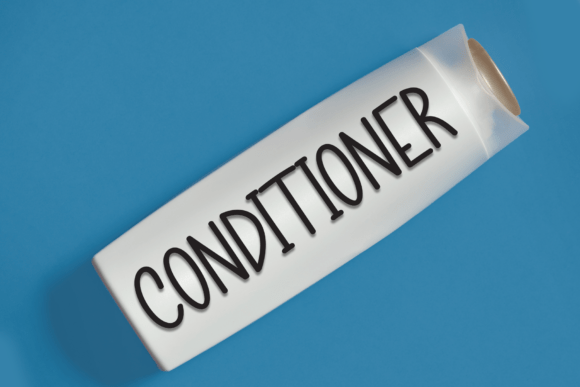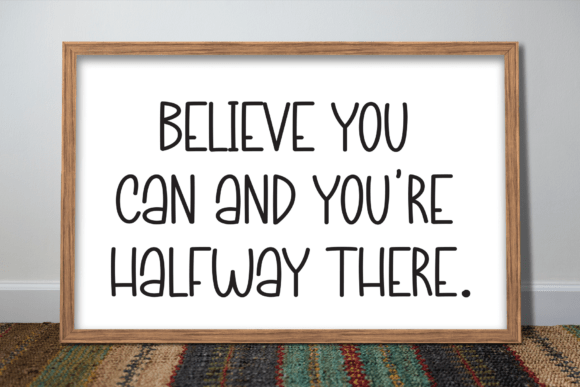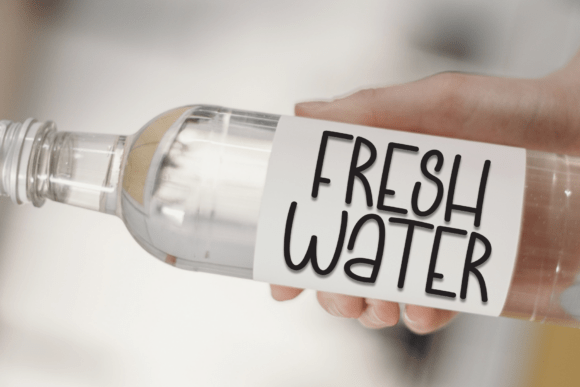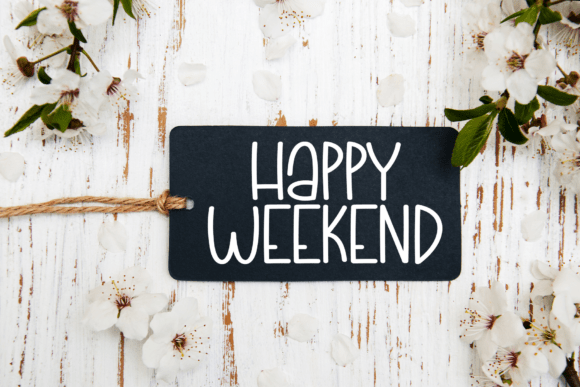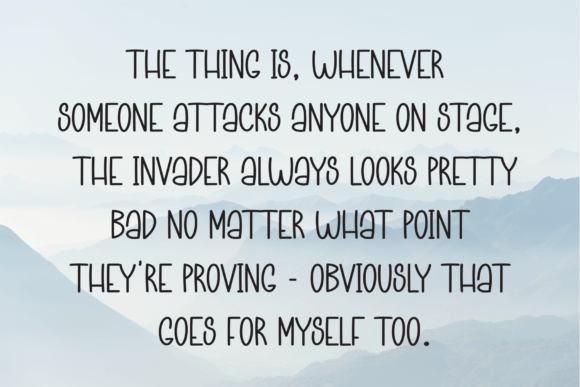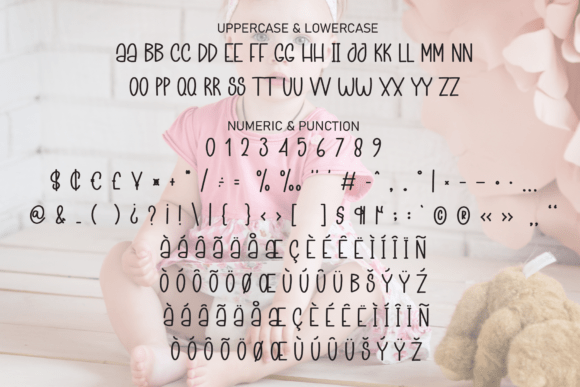
Baby Girl Font: Adding a Touch of Whimsy to Your Designs
In the world of typography, few fonts capture the essence of authentic handwriting as beautifully as the Baby Girl Font. This handwritten display font is a charming addition to any design project, bringing a sense of warmth and personality to every letter. With its playful strokes and casual flow, it’s perfect for adding a personal touch to quotes, greeting cards, branding, and more.
Handwritten fonts have a unique ability to evoke emotions and create a sense of connection with the reader. They add a touch of humanity and imperfection to a design, making it feel more approachable and relatable. The Baby Girl Font takes this to the next level with its delicate and whimsical strokes, making it an ideal choice for designers and crafters looking to add a touch of magic to their work.
One of the best things about the Baby Girl Font is its versatility. It’s suitable for a wide range of projects, from kids’ designs to modern logos. Whether you’re creating:
- Quotes and posters: Add a touch of elegance and sophistication to your inspirational quotes and posters.
- Greeting cards: Make your greeting cards stand out with a personal and heartfelt touch.
- Branding: Use the Baby Girl Font to create a unique and memorable brand identity.
- Kids’ designs: Bring a touch of whimsy and fun to your kids’ designs, from nursery decor to children’s books.
- Logos: Create a modern and eye-catching logo that captures the essence of your brand.
Why Choose the Baby Girl Font?
So, what sets the Baby Girl Font apart from other handwritten fonts? Here are just a few reasons why designers and crafters love this font:
- Playful strokes: The Baby Girl Font features playful strokes that add a touch of whimsy to your designs.
- Casual flow: The font’s casual flow makes it feel more approachable and relatable.
- Authentic handwriting feel: The Baby Girl Font captures the essence of authentic handwriting, making it perfect for designs that need a personal touch.
- Warmth and character: The font adds a touch of warmth and character to every letter, making your designs stand out.
Tips for Using the Baby Girl Font
To get the most out of the Baby Girl Font, here are a few tips to keep in mind:
- Use it sparingly: While the Baby Girl Font is beautiful, it can be overwhelming if used too much. Use it sparingly to add a touch of elegance to your designs.
- Pair it with other fonts: Experiment with pairing the Baby Girl Font with other fonts to create a unique and eye-catching combination.
- Adjust the size and color: Play around with different sizes and colors to find the perfect combination for your design.
The Baby Girl Font is a beautiful and versatile handwritten display font that’s perfect for adding a touch of whimsy to your designs. With its playful strokes and casual flow, it captures the essence of authentic handwriting, making it ideal for quotes, greeting cards, branding, and more. Whether you’re a designer or crafter, this font is sure to become a favorite in your collection.
Get Creative with the Baby Girl Font